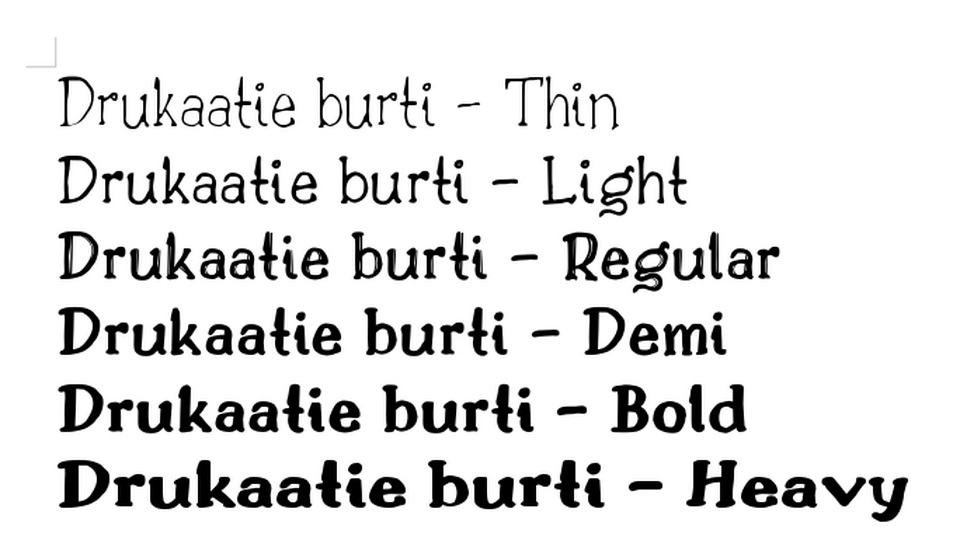
Drukaatie Burti is an another technical handwriting typeface. The capital letters have the same height as Liberation Serif font. Texts formatted with Drukaatie Burti Regular takes approximately the same space as texts formatted with Liberation Serif Regular.
There are six font weights available. At present only Latin letters are designed.